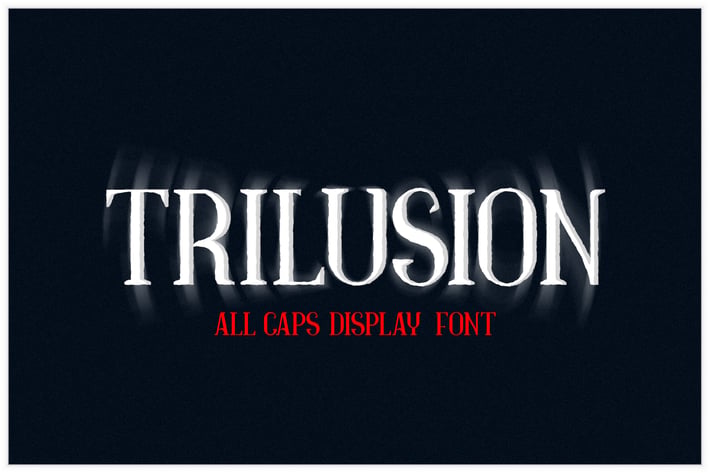
Trilusion Typeface
Trilusion is a simple yet classy typeface with a hint of modern touch. It has a unique retro feel to it.
The overall looking of this typeface is suitable for anyone who wants to achieve something effective and appealing.